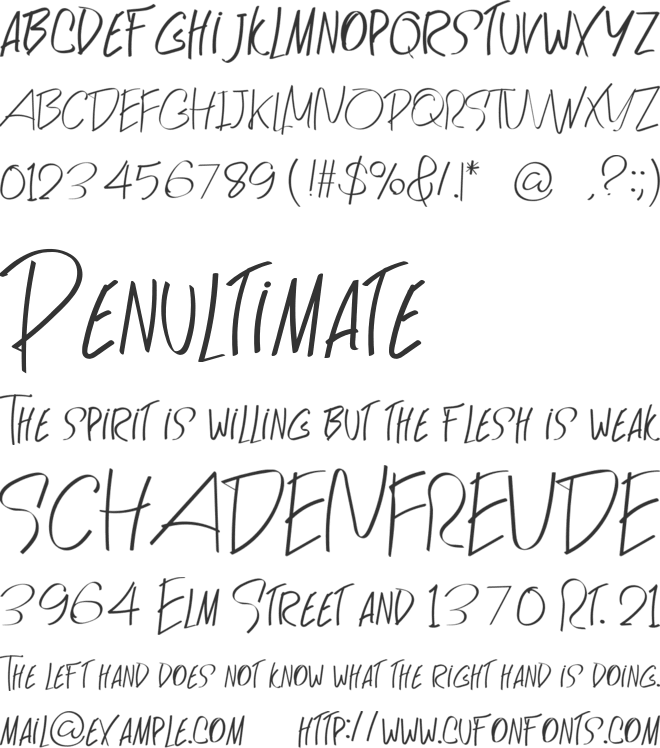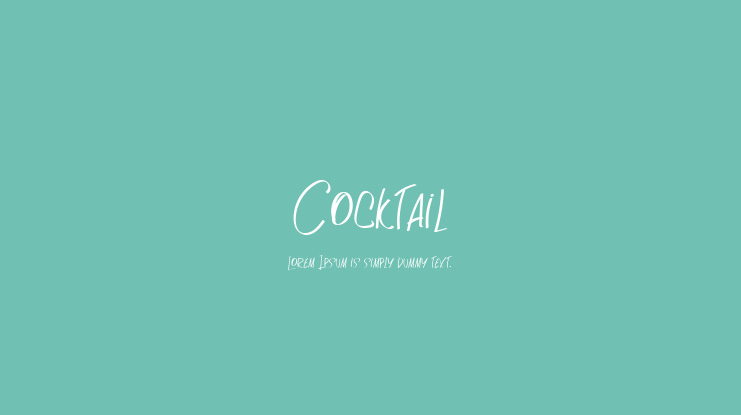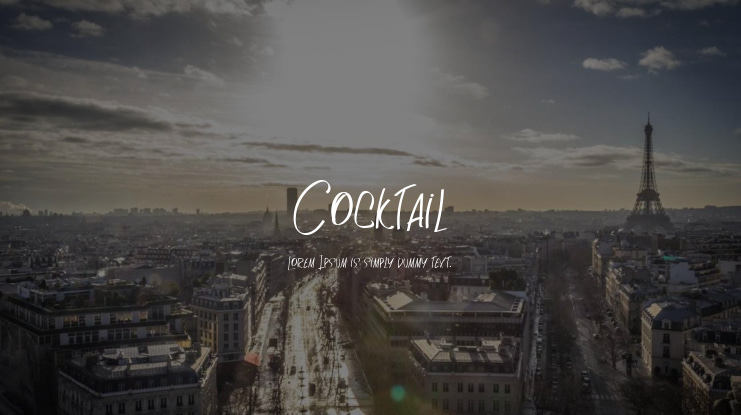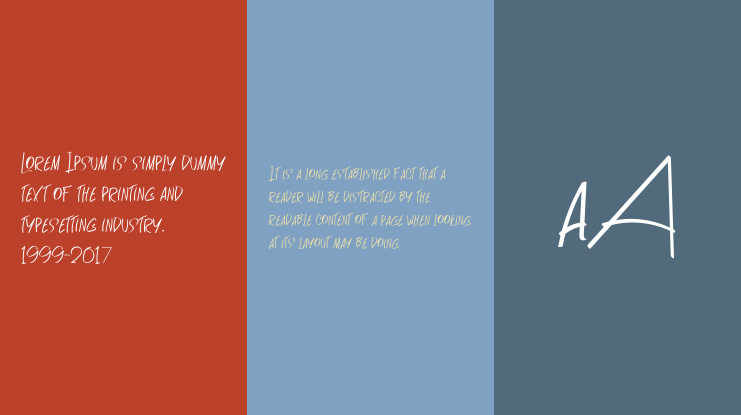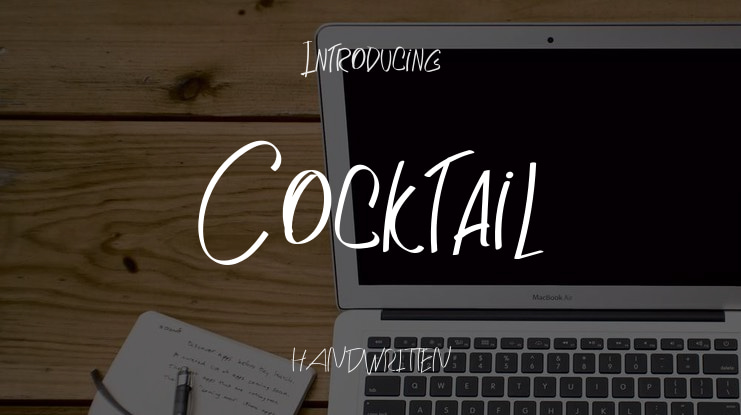
Cocktail Font
Cocktail font is a stylish and approachable script font that adds a touch of informality to any project. This versatile font is a valuable addition to your collection, capable of enhancing your design work significantly.